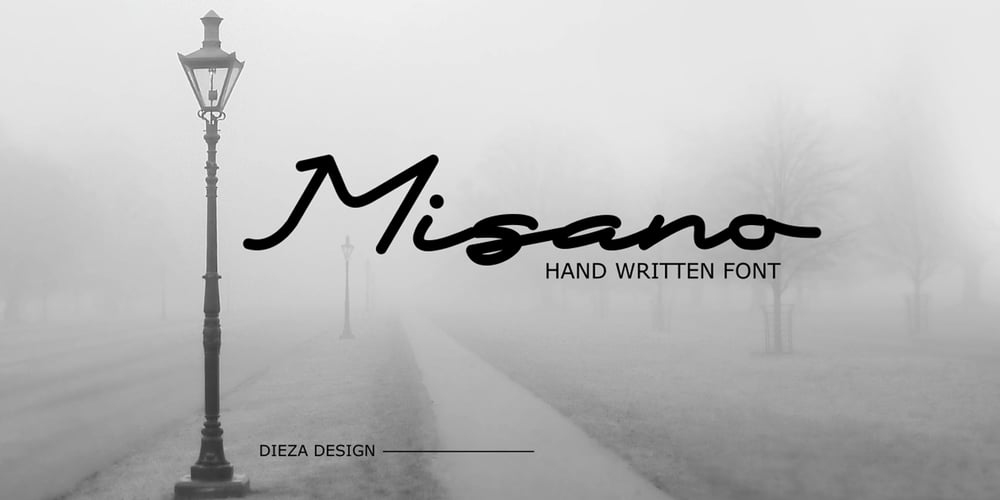
Misano Font Family was designed by Rohmat Sidiq Mustaqim and published by Dieza Design. Misano contains 1 styles and family package options. Misano a new, modern and fresh script with a handwritten style making this font looks elegant, natural, stylish and perfect for any awesome projects that need handwriting taste.